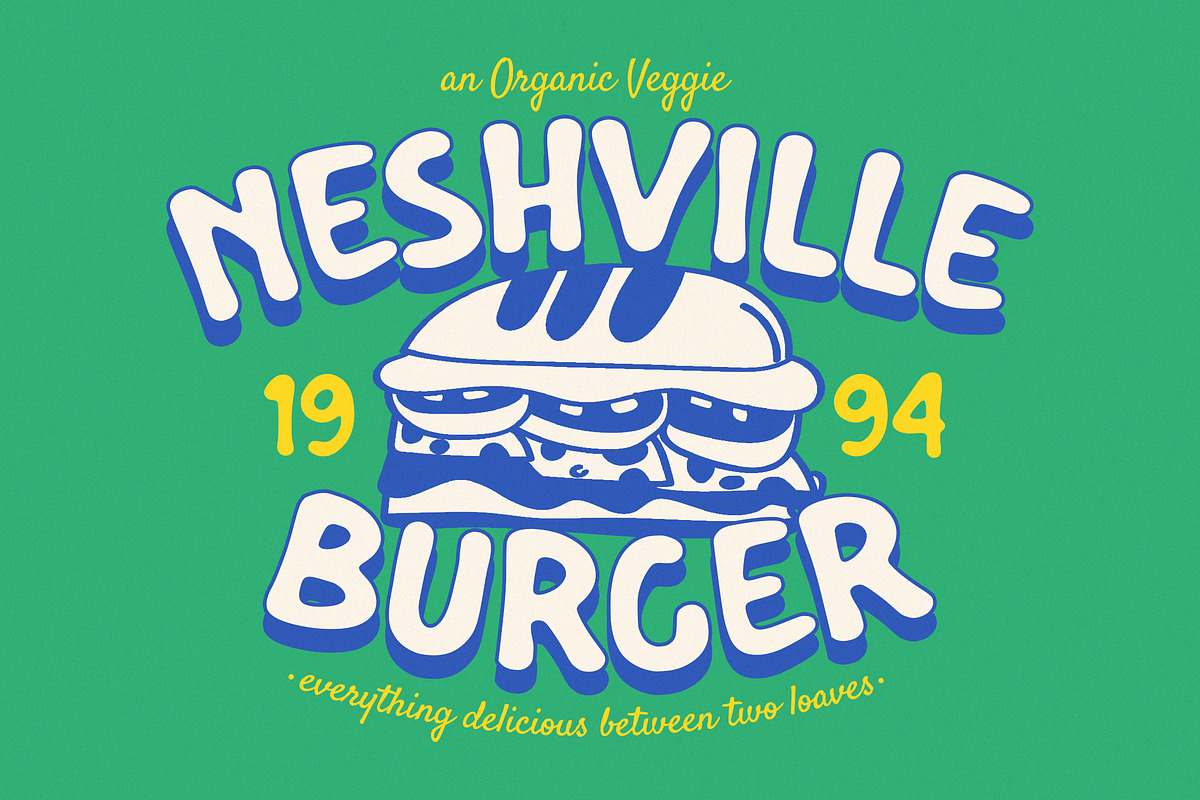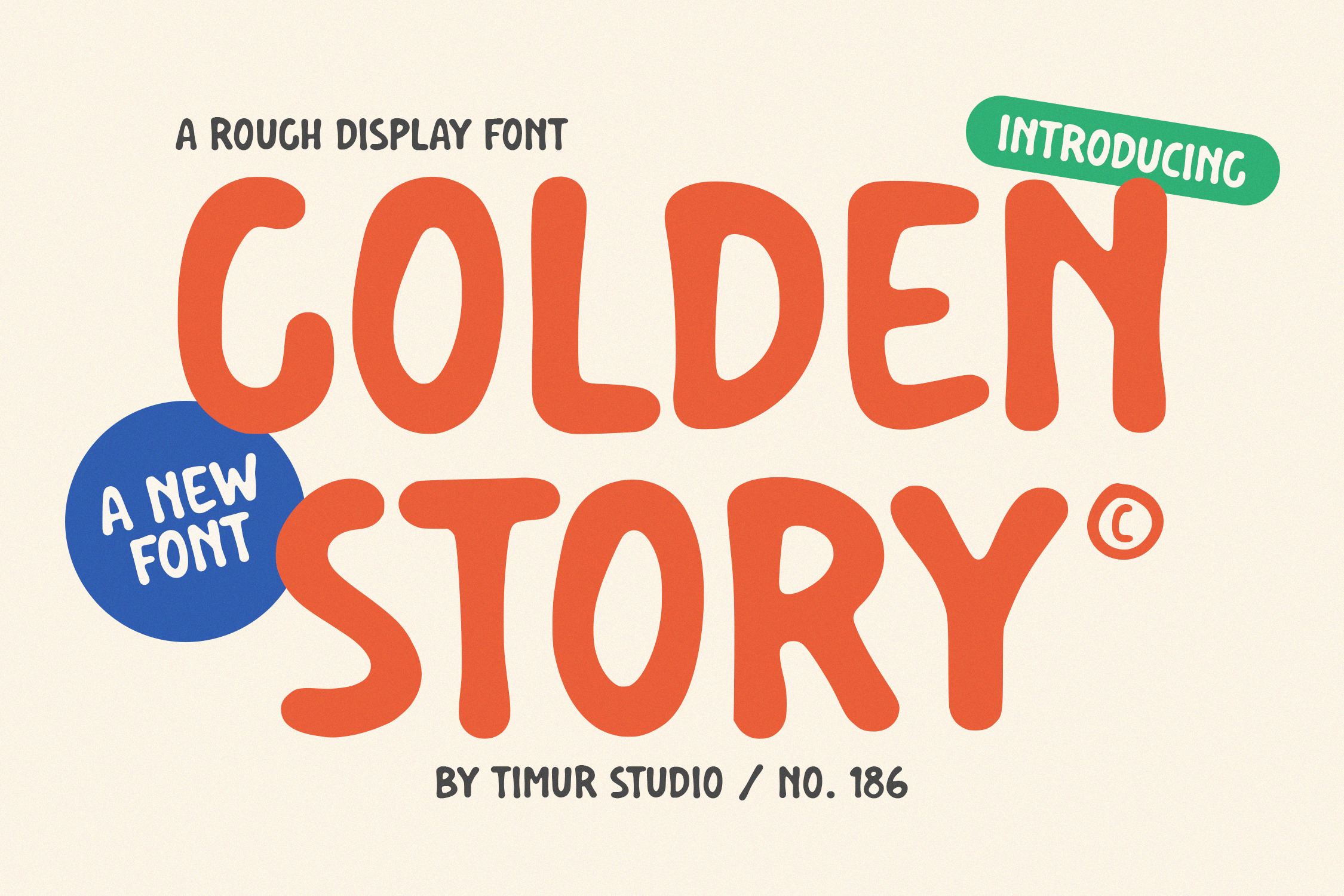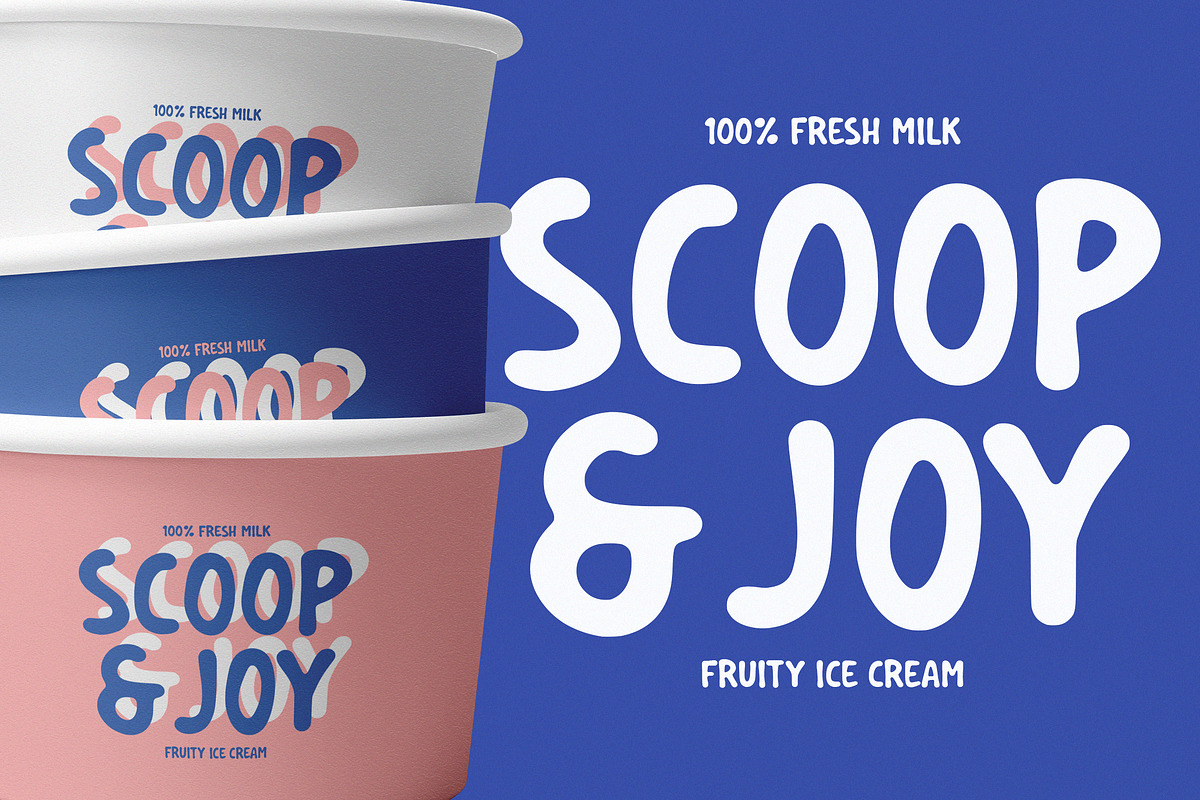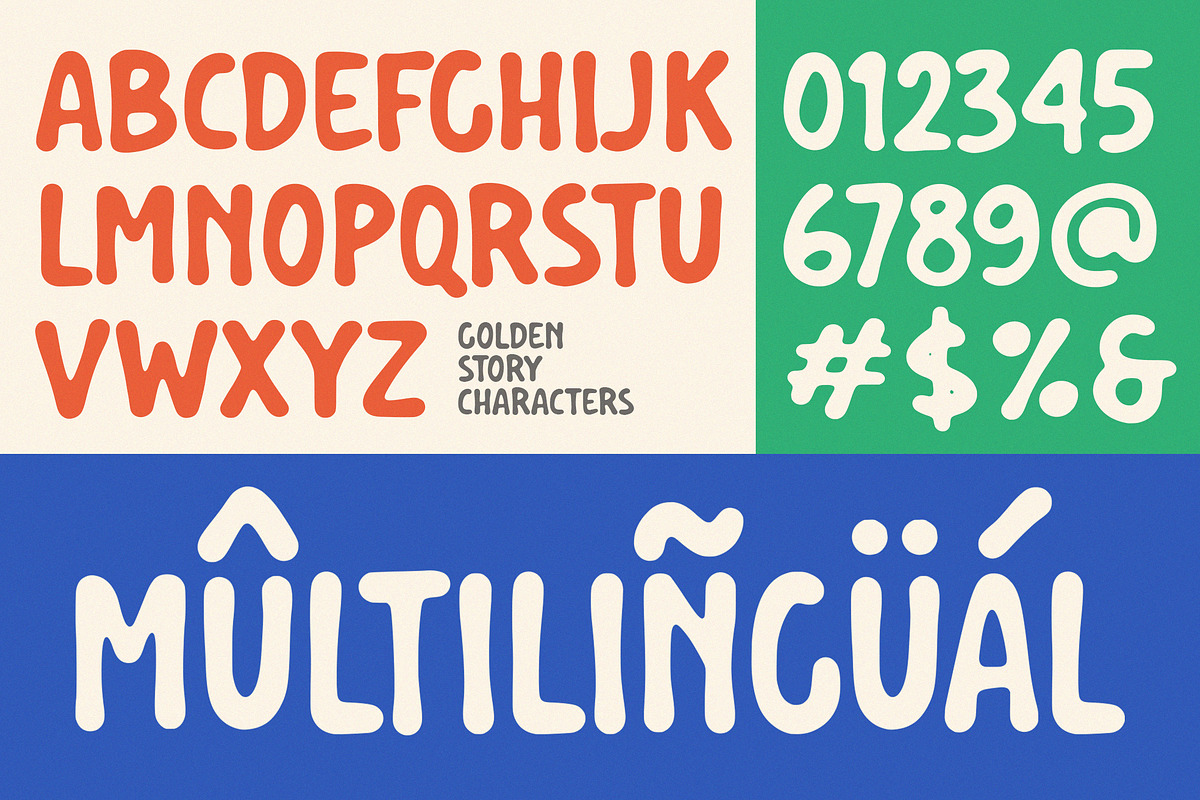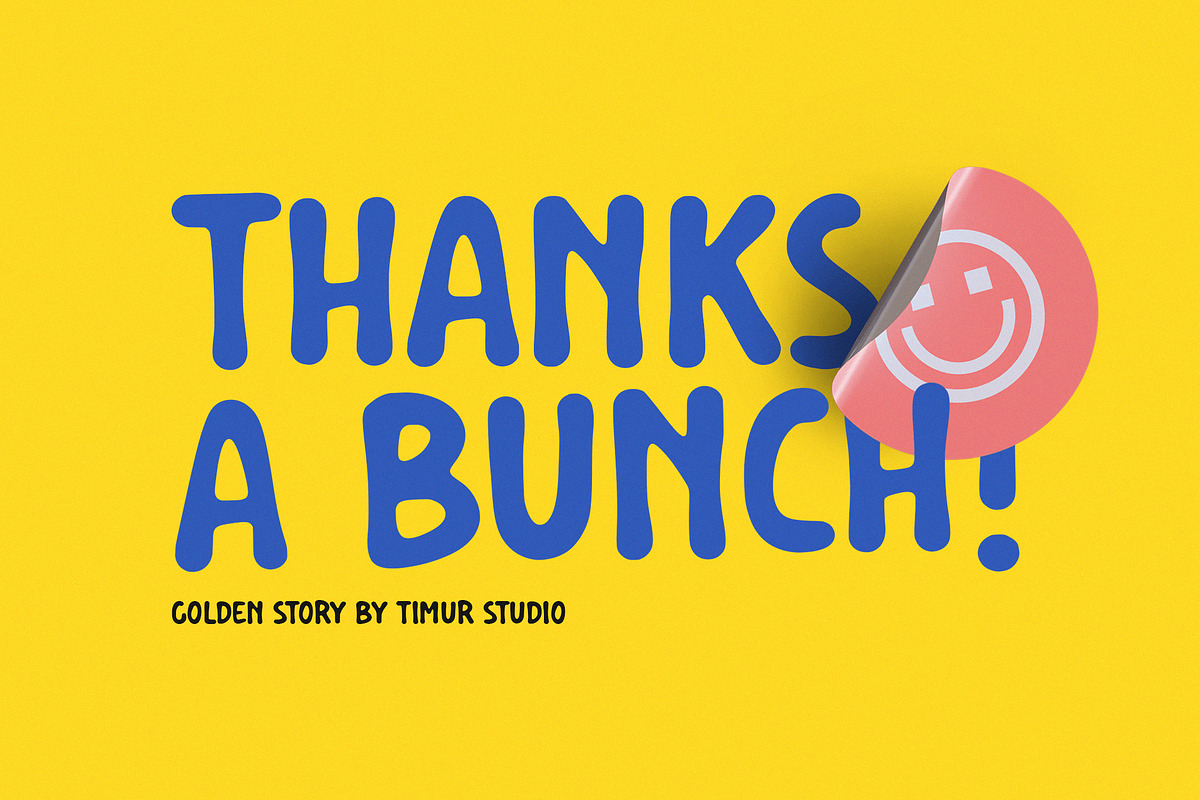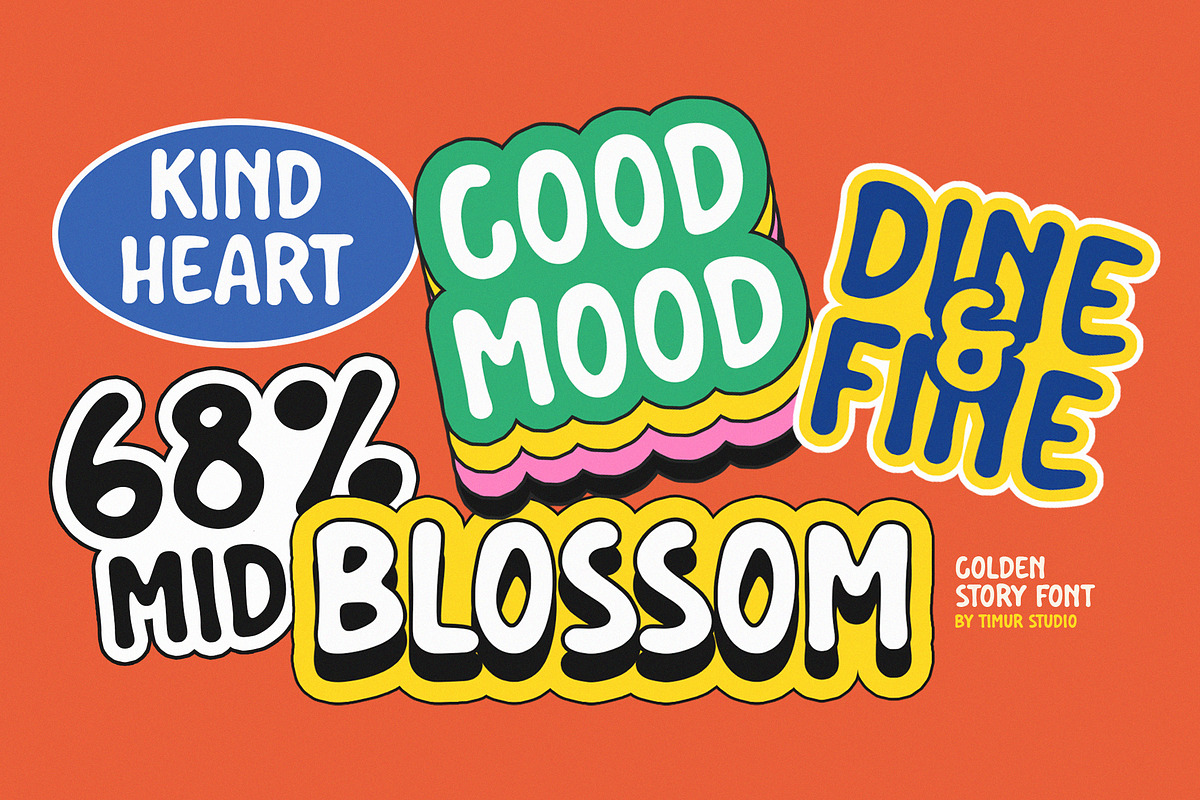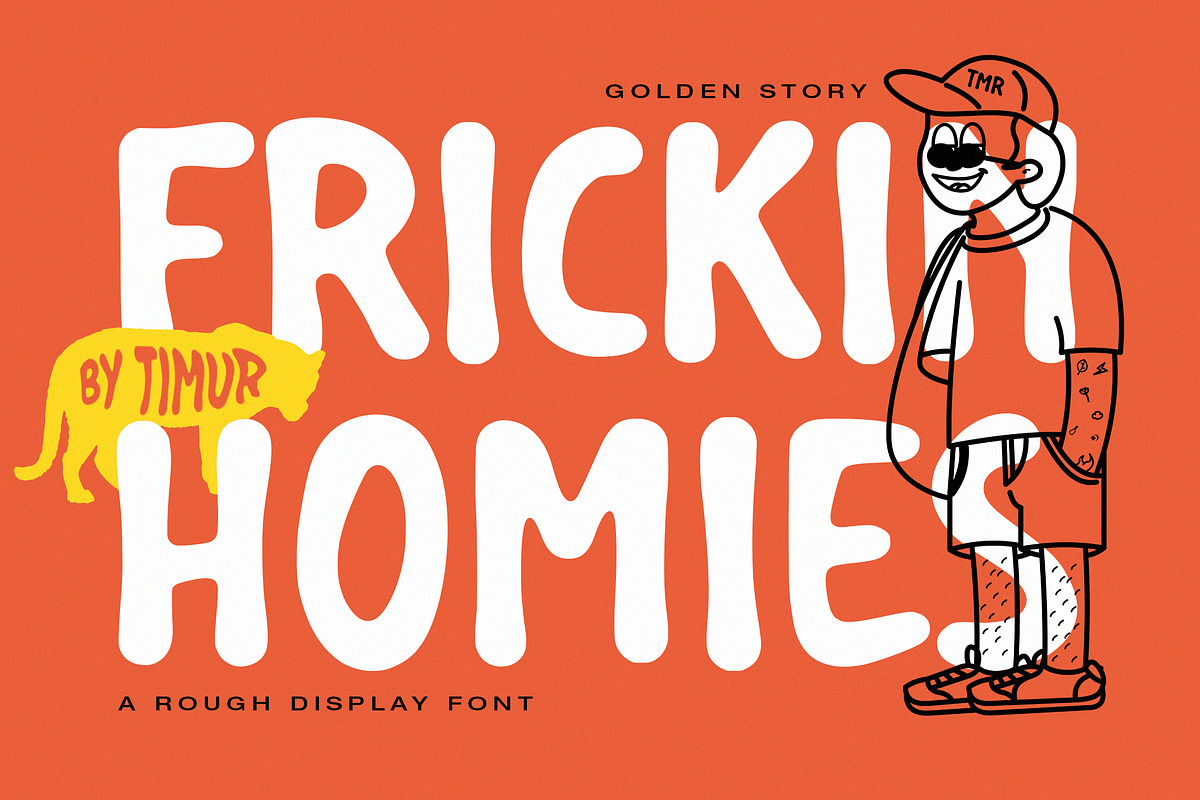
Golden Story Font
Introduced by Timurtype Studio!
Golden Story is a Rough Display Font
This font is a bold and dynamic choice for your design projects. With its rugged and textured letterforms, this font exudes a sense of rawness and authenticity. The rough edges and distressed appearance give the Golden Story font a vintage and weathered aesthetic, perfect for adding a touch of character and grit to your posters, album covers, and branding materials. Whether you’re aiming for a retro and nostalgic feel or a contemporary and edgy look, the Golden Story font offers versatility and impact. Embrace the rough and rugged energy of the Golden Story display font and infuse your designs with a sense of timeless appeal and storytelling.
Golden Story Font also supports multilingualism